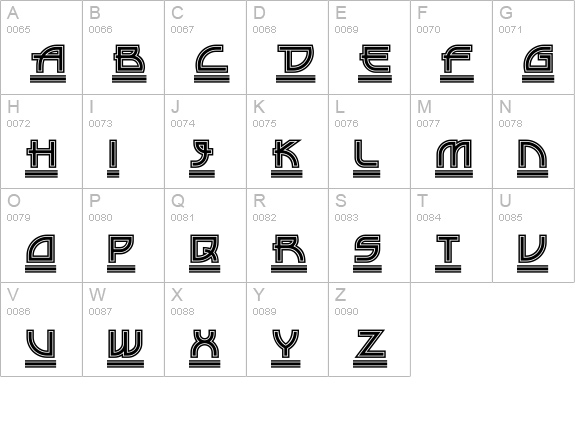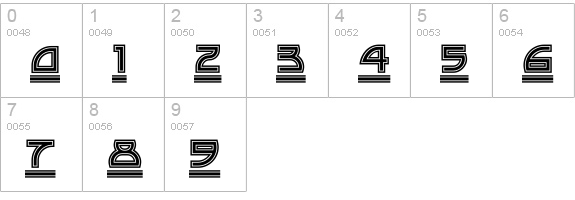
Drive-Thru NF Font Details
Introducing Drive-Thru NF font, a dynamic and eye-catching typeface that exudes a sense of speed and modernity. Designed with sleek lines and bold curves, Drive-Thru NF is perfect for adding a touch of energy and sophistication to any design project. Whether you're creating posters, logos, or social media graphics, this versatile font is sure to make a statement. What's more, Drive-Thru NF is available for free download at FontsMarket.com. This means you can easily access this high-quality font and enhance your creative projects without any cost. Don't miss out on the opportunity to elevate your designs with Drive-Thru NF font – download it today and let your creativity soar!